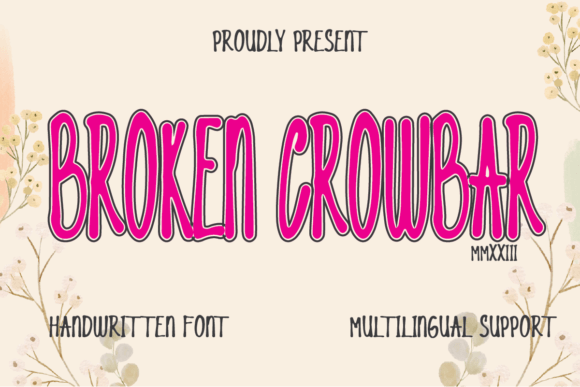
Introducing Broken Crowbar Font, a captivating script font family that will transform your creative projects into stunning masterpieces. Immerse yourself in the world of music with this font, perfectly crafted for captivating designs that resonate with your passion for rhythm and melody.
Unleash the raw, organic energy of Broken Crowbar, inspired by the natural flow of handwriting. Each character dances across the page with effortless grace, capturing the essence of hand-crafted artistry. Elevate your logos, posters, album covers, and social media graphics with a unique touch that speaks to the soul of music lovers.
Let your imagination run wild as you explore the endless possibilities of Broken Crowbar. Experiment with different sizes, colors, and layouts to create designs that captivate and inspire. Whether you're a musician, designer, or simply a passionate music enthusiast, this font will ignite your creativity and bring your musical visions to life.
Make Broken Crowbar your go-to font for music-related projects and let your designs resonate with the world. From album covers that evoke emotion to posters that capture the energy of live performances, this font is your ticket to creating designs that leave a lasting impression.
Don't miss out on the opportunity to add Broken Crowbar to your font collection. Its versatility extends beyond music-themed designs, making it a valuable asset for a wide range of creative endeavors. Elevate your branding, packaging, and even personal projects with a touch of handwritten charm.
Broken Crowbar is more than just a font; it's an invitation to let your creativity flow. Embrace the beauty of imperfection and unleash the power of raw, organic expression. Transform your designs into visual symphonies that touch the hearts and souls of your audience.